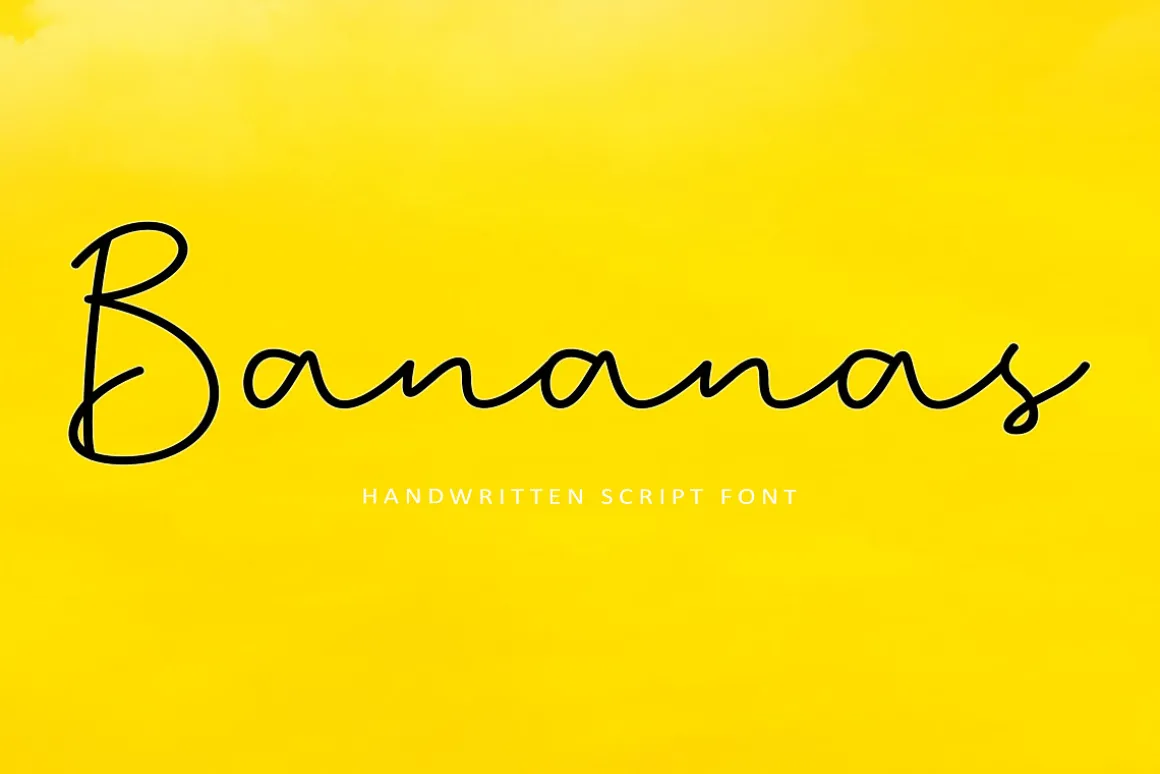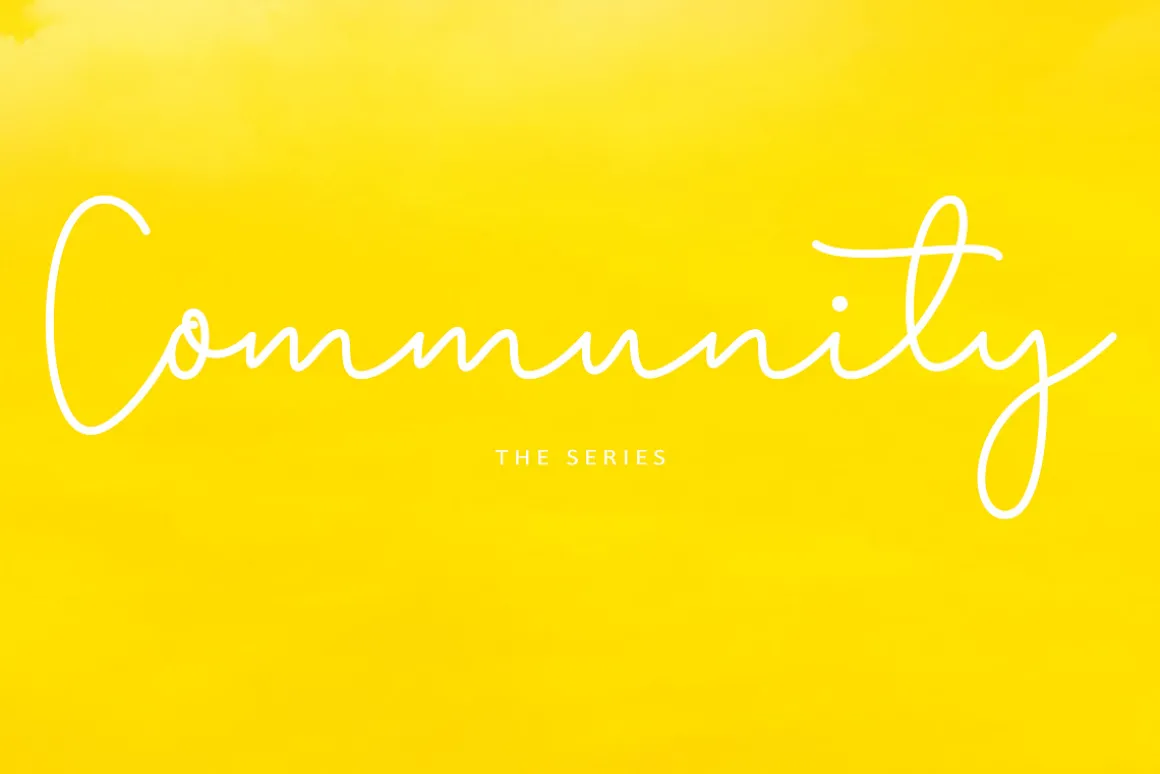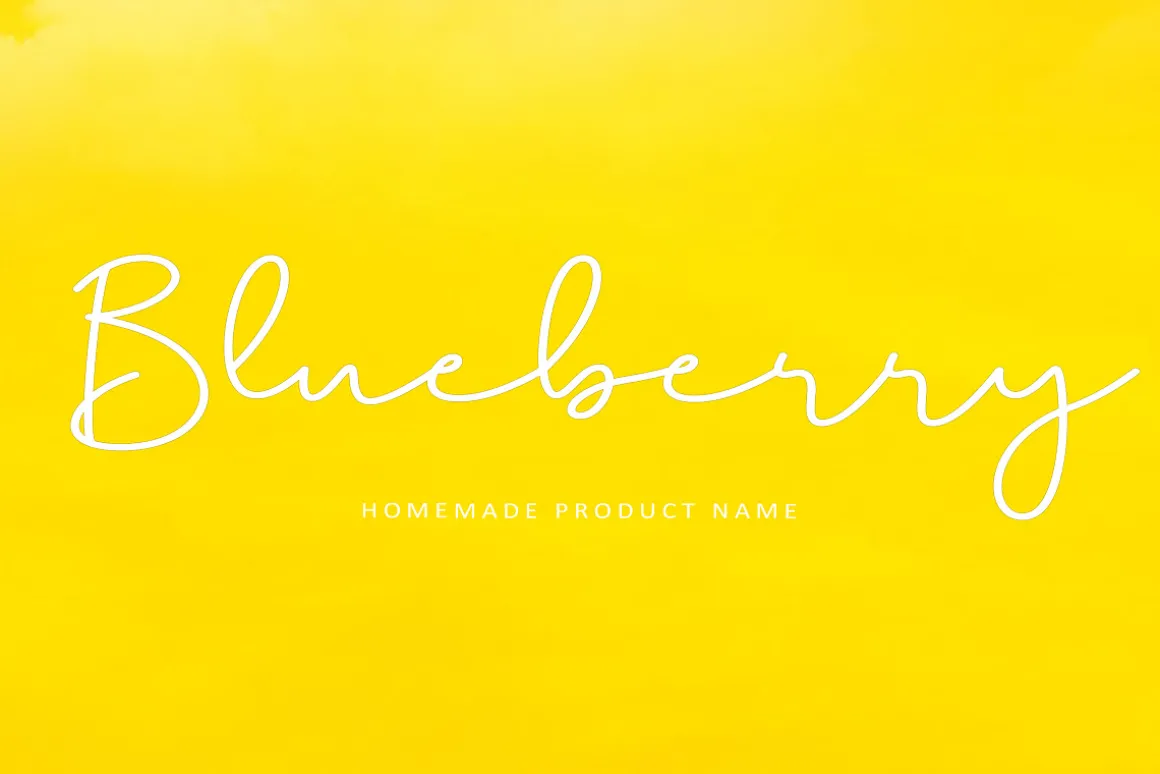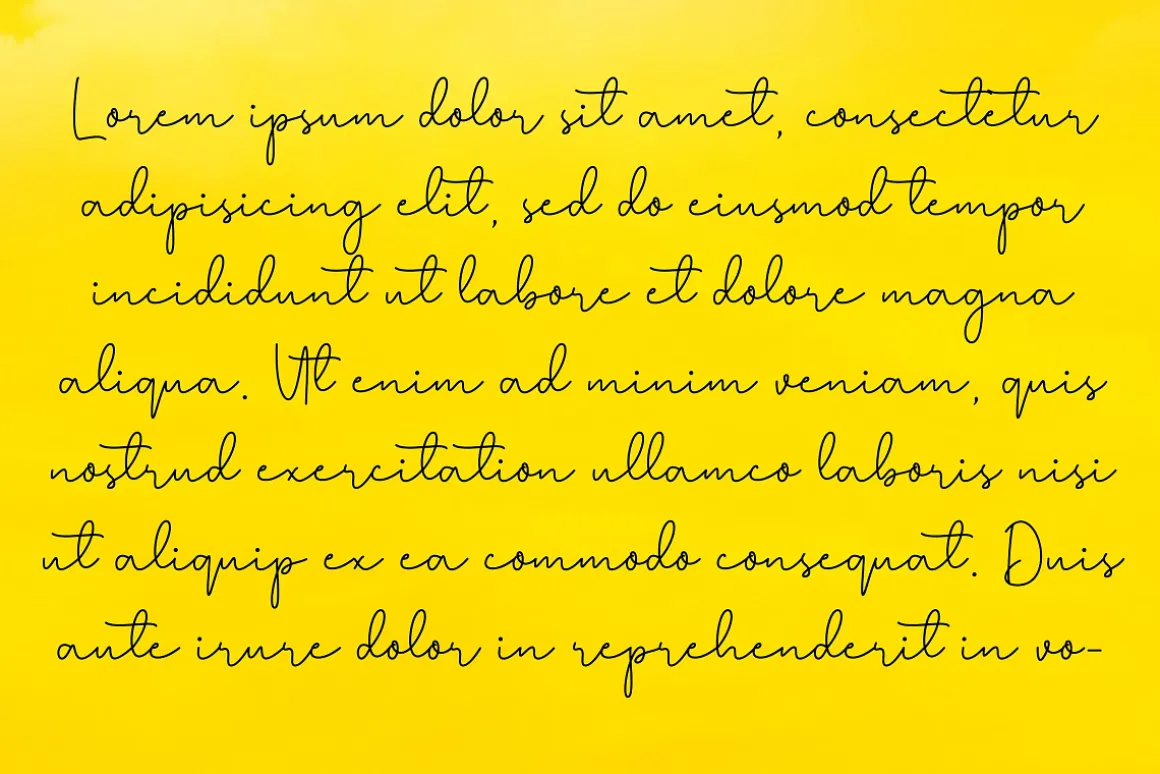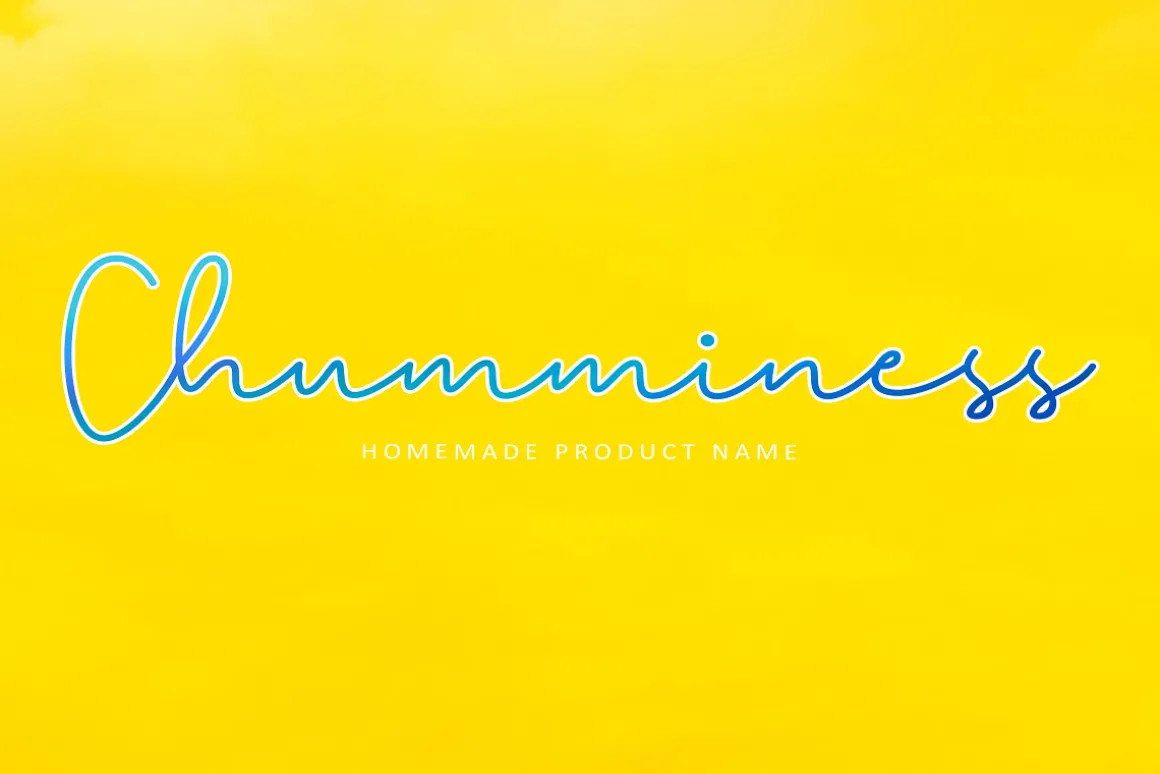
Bananas is an elegant script font. Fall in love with its completely different and timeless style and use it to create spectacular designs. (please type the preview to see if I have what you need)